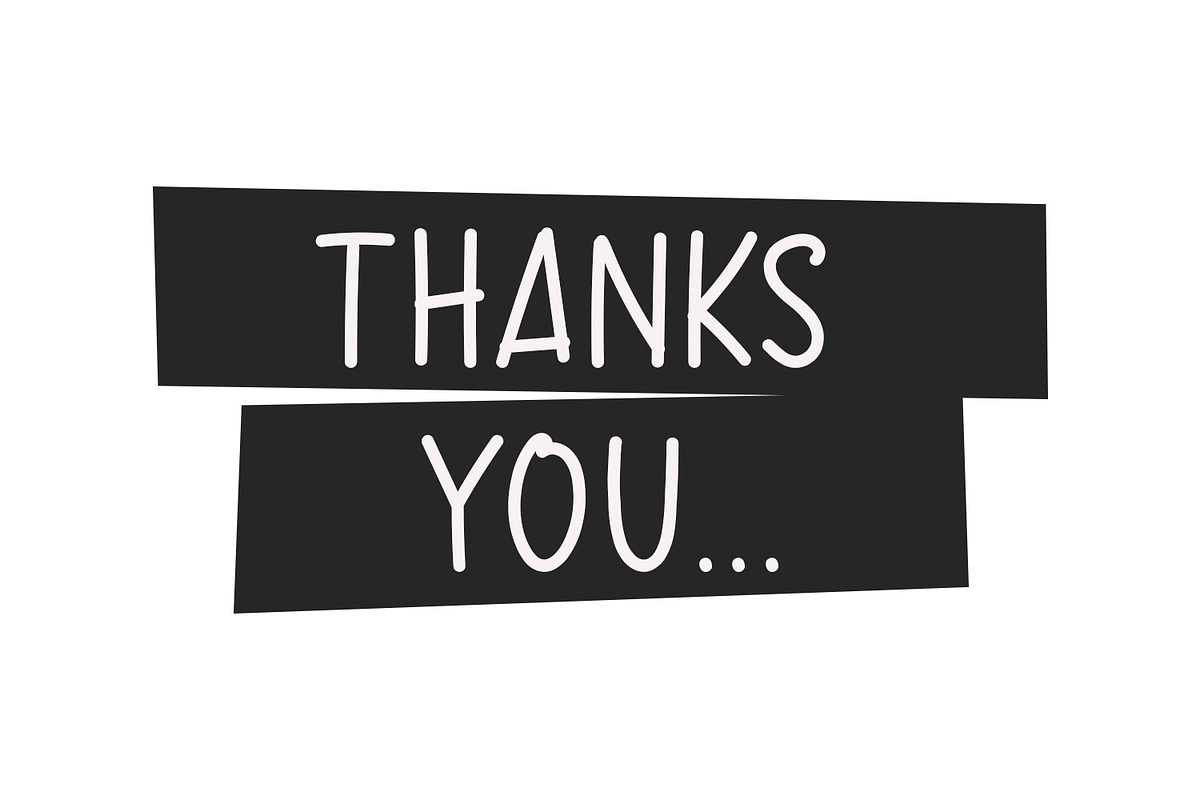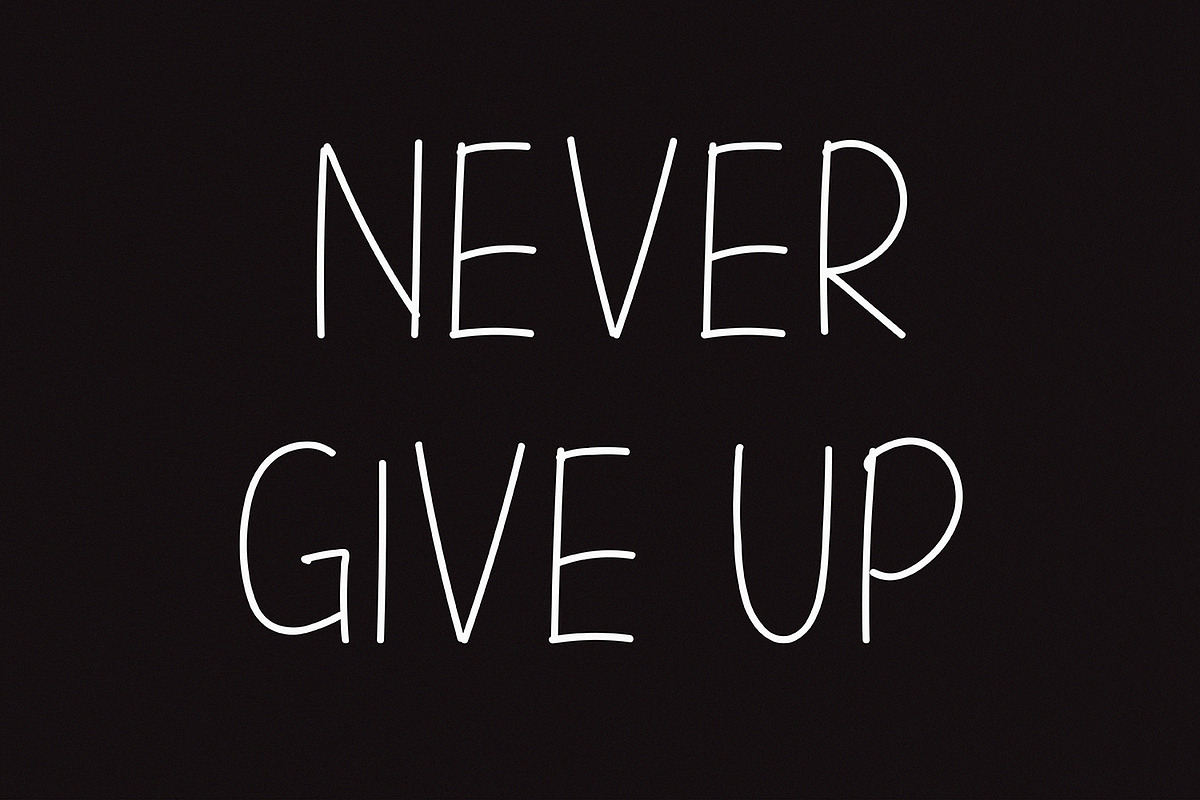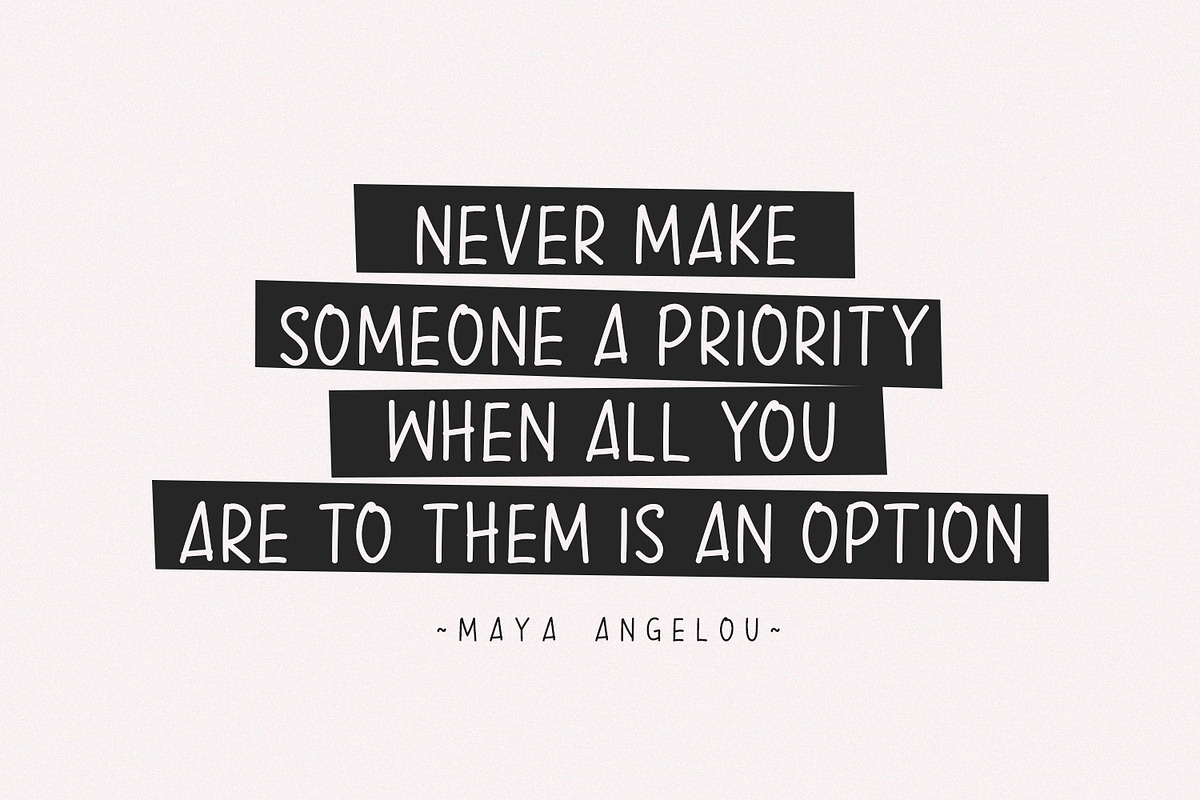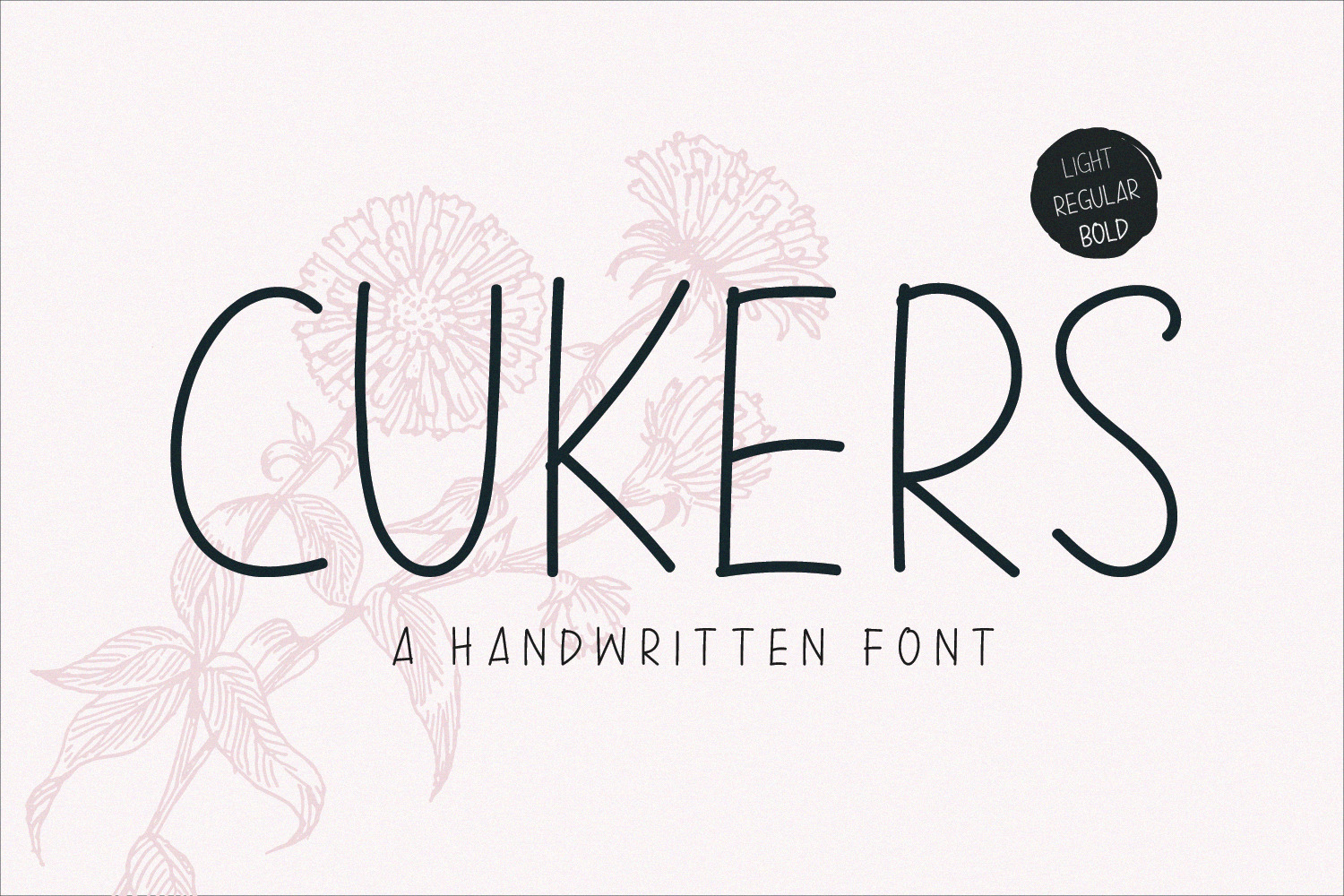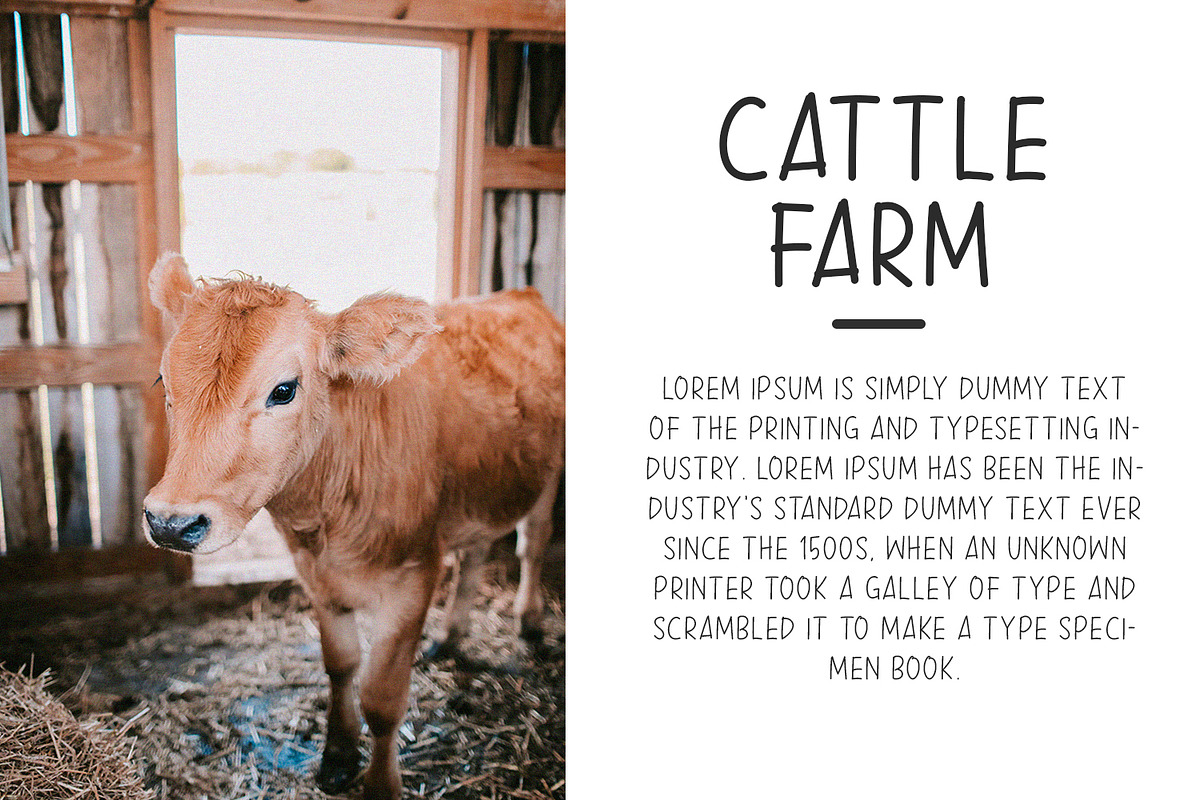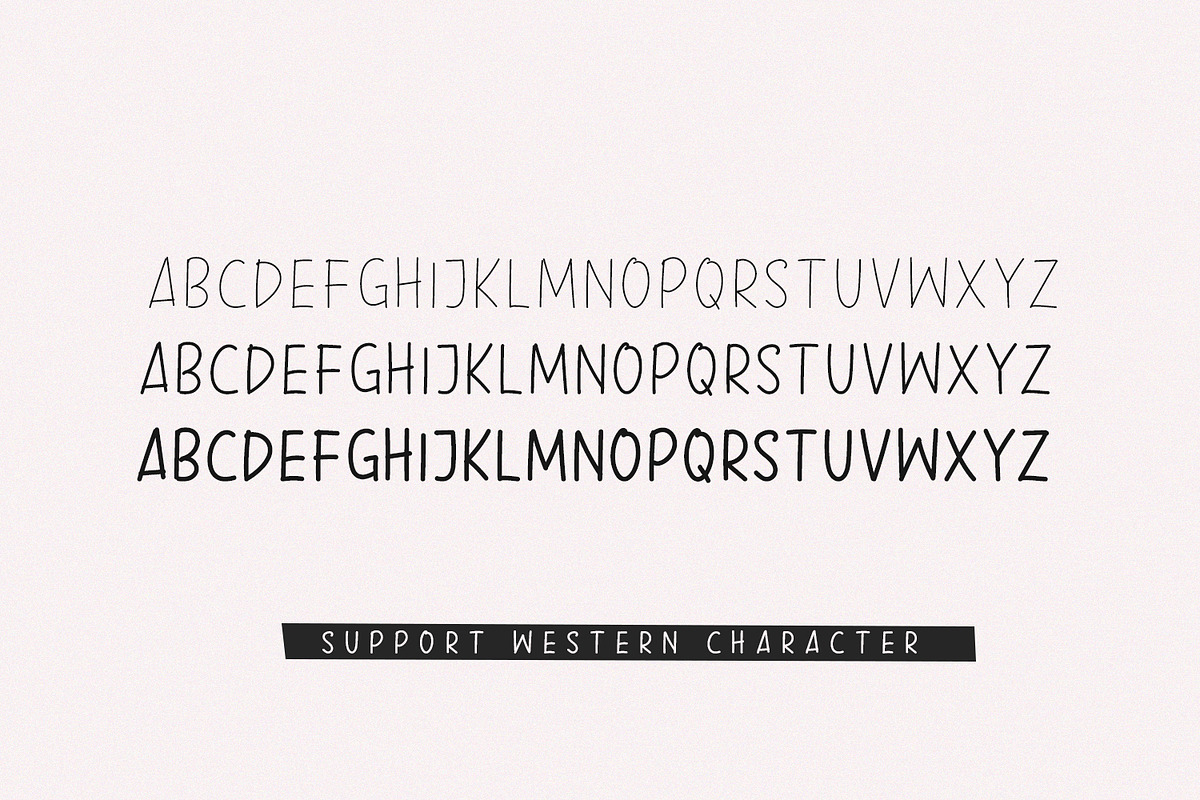
Cukers - A Handwritten Font
Meet Cukers – A Bold & Clean Handwritten Sans Serif
Looking for a modern handwritten font with a playful edge and professional clarity? Cukers is the perfect fusion of clean design and hand-crafted charm — ideal for branding, packaging, editorial layouts, digital products, and more.
Whether you're designing for fun or for high-end clients, Cukers adds personality without sacrificing legibility. With three versatile weights (Light, Regular, Bold), this font family gives you the flexibility to create striking typographic hierarchies.
- All Caps + Numbers + Symbols – Clean, consistent, and stylish
- Multilingual Support – Covers a wide range of Latin-based languages
- Branding & Logo Design
- Social Media Posts & Quotes
- Website Headers & Blog Titles
- Packaging & Labels
- Editorial Layouts & Posters
- Digital Planners, Stickers, and more!
Why Designers Love Cukers:
- Minimalist meets handcrafted – the perfect balance
- Works across print and digital seamlessly